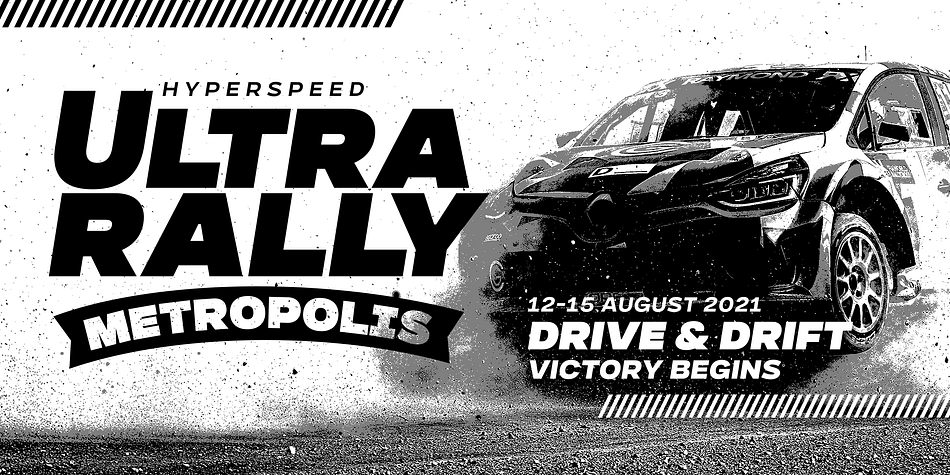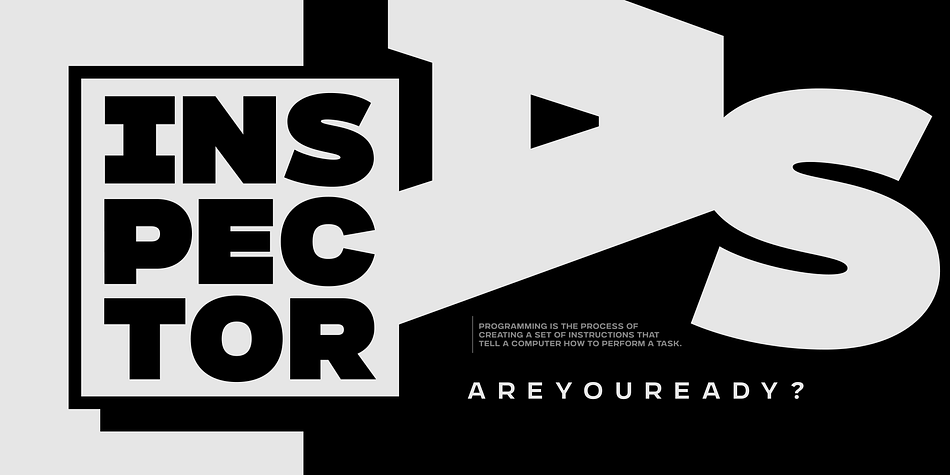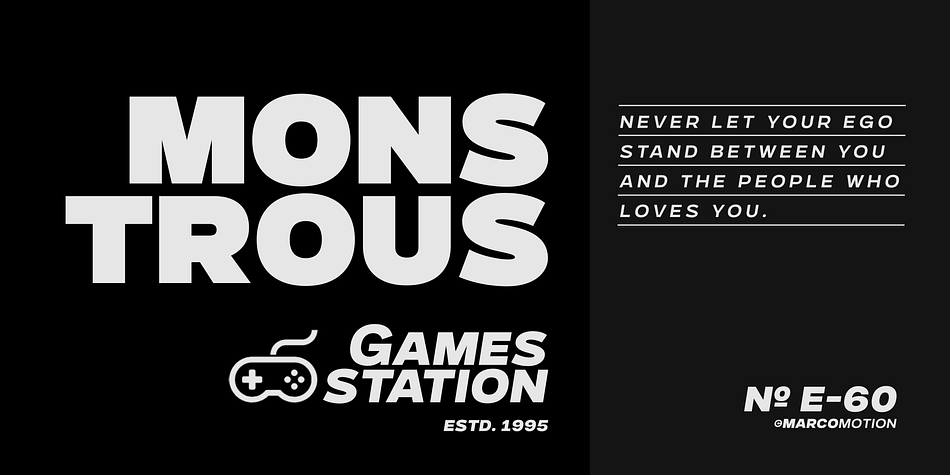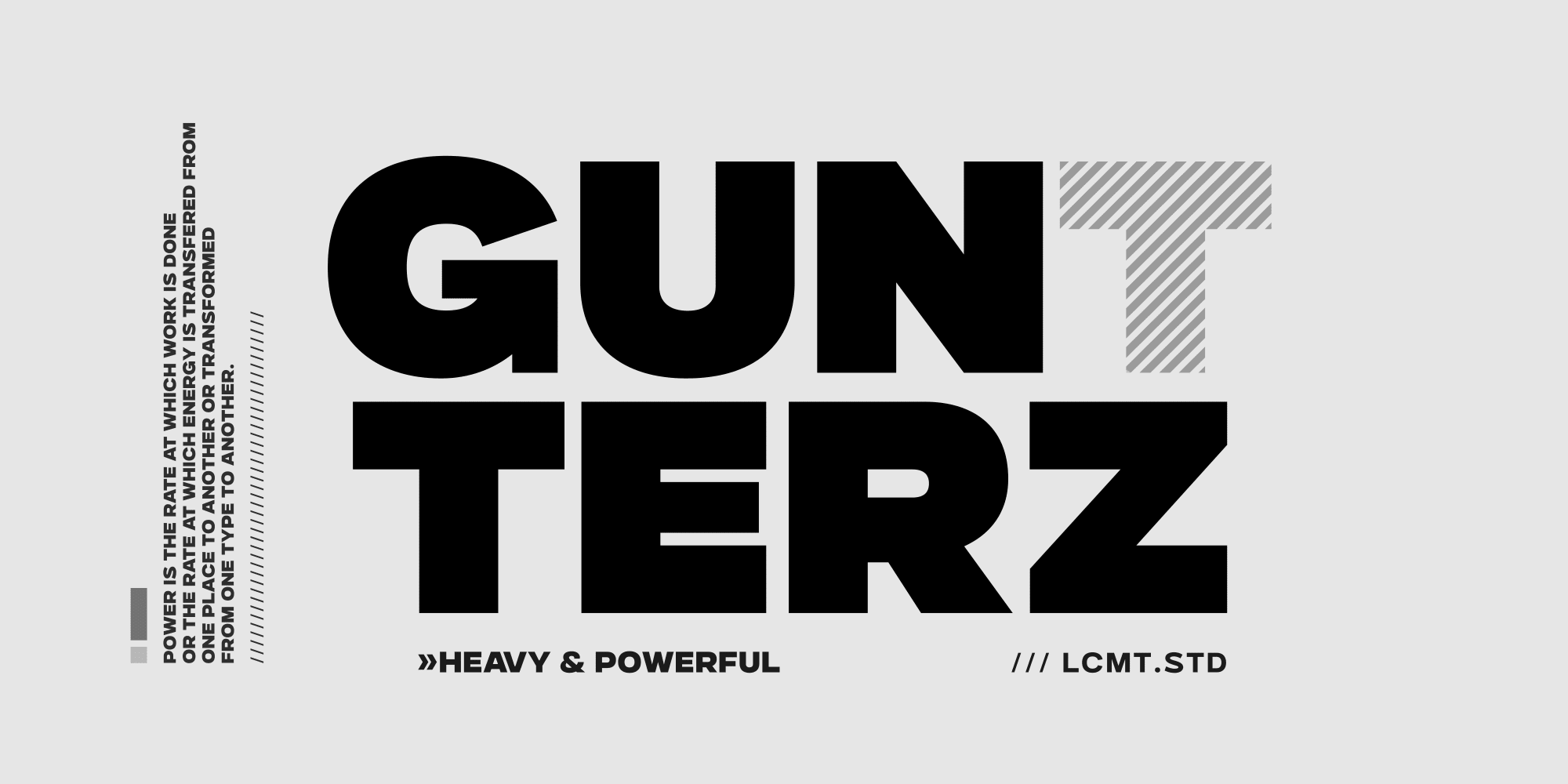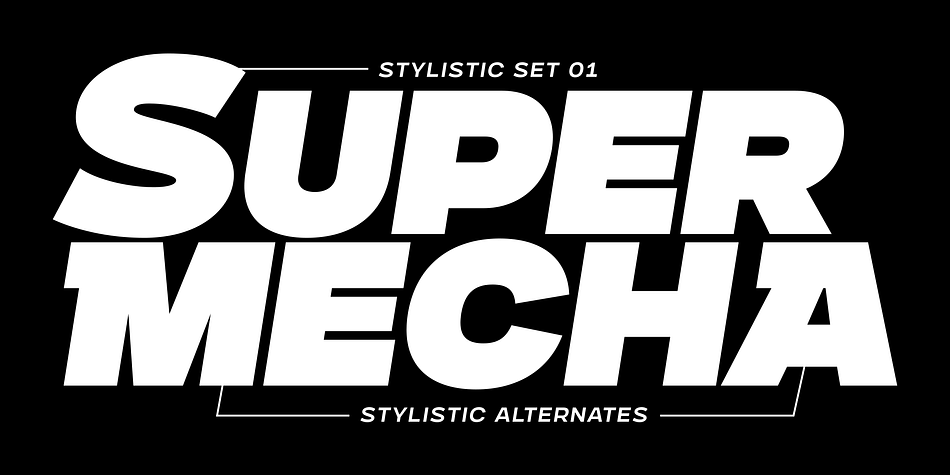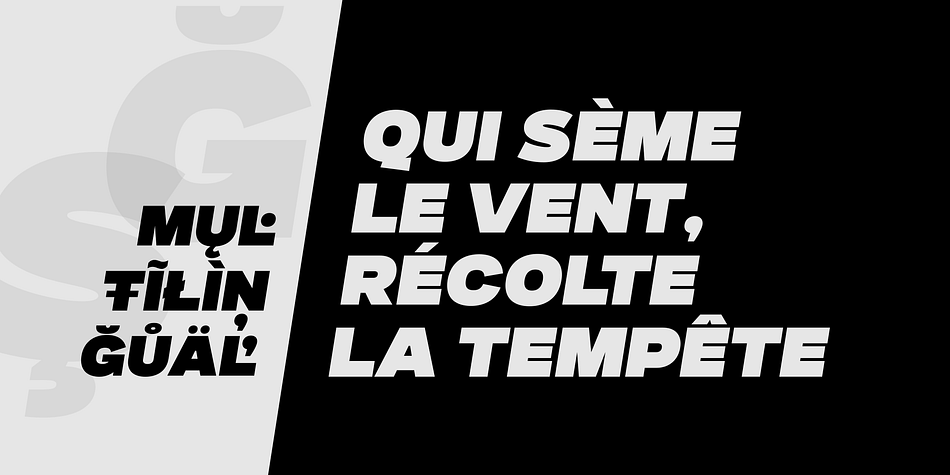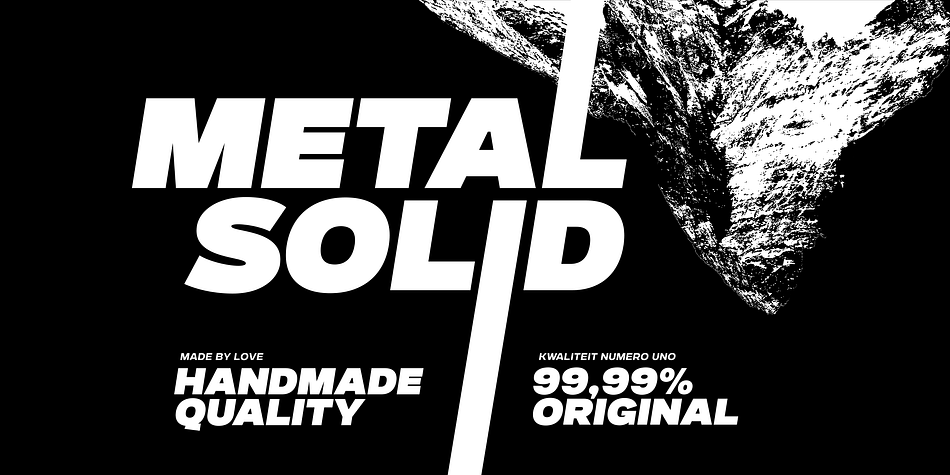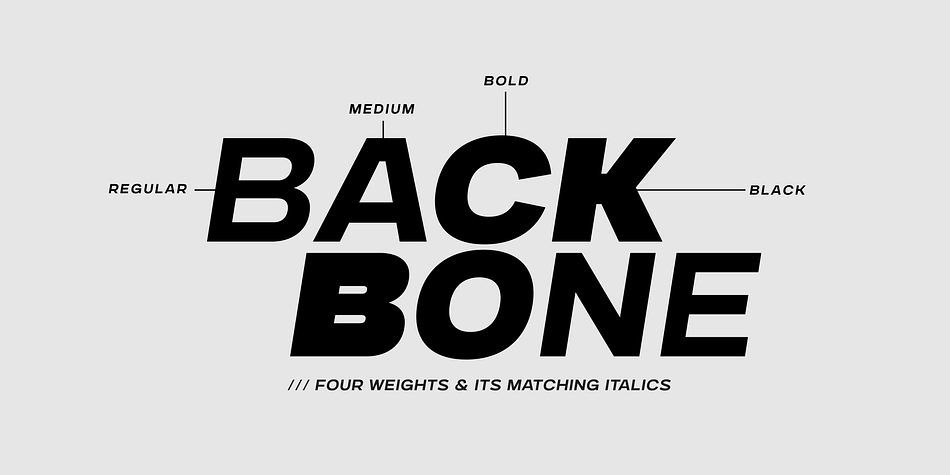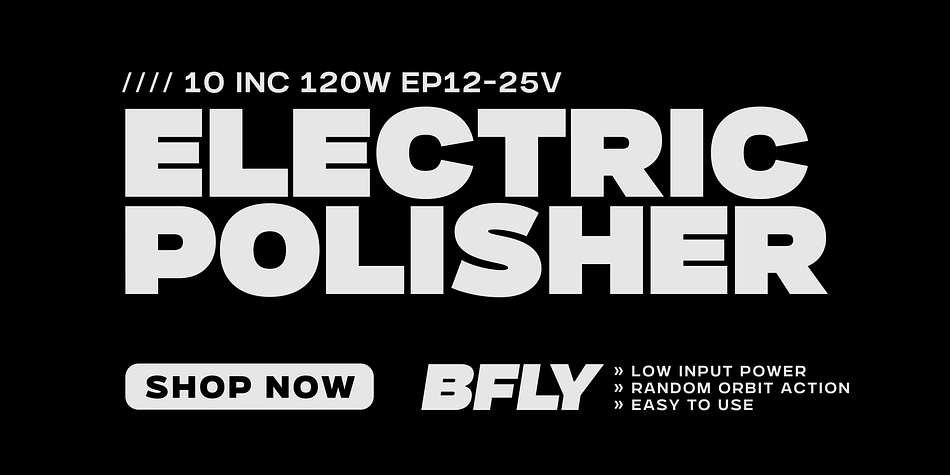
Gunterz is a sans serif font family. This typeface has eight styles and was published by Locomotype.
If you like a bold and powerful all-caps sans-serif font to make your message stand out, Gunterz can be the choice to maximize your goals.
Available in four weights and its matching italics, Gunterz is designed to meet font needs in a variety of different situations. To make it more attractive, Gunterz also provides opentypes features such as stylistic alternates and a stylistic set. Others, this font also supports Cyrillic language.
Gunterz is suitable for poster titles, packaging design, headlines, logotypes, motion graphics, movie titles, sports promotion and future technology.